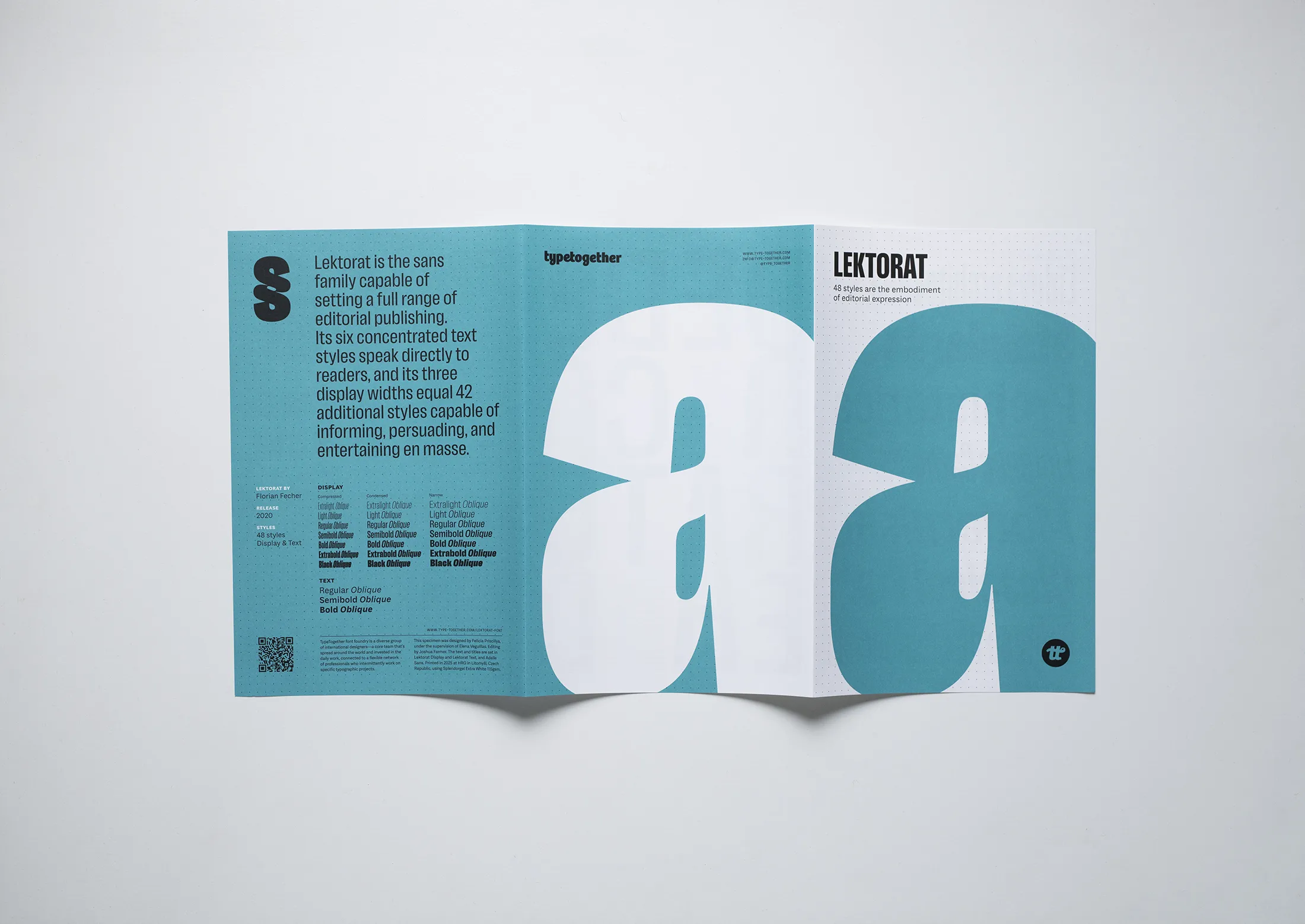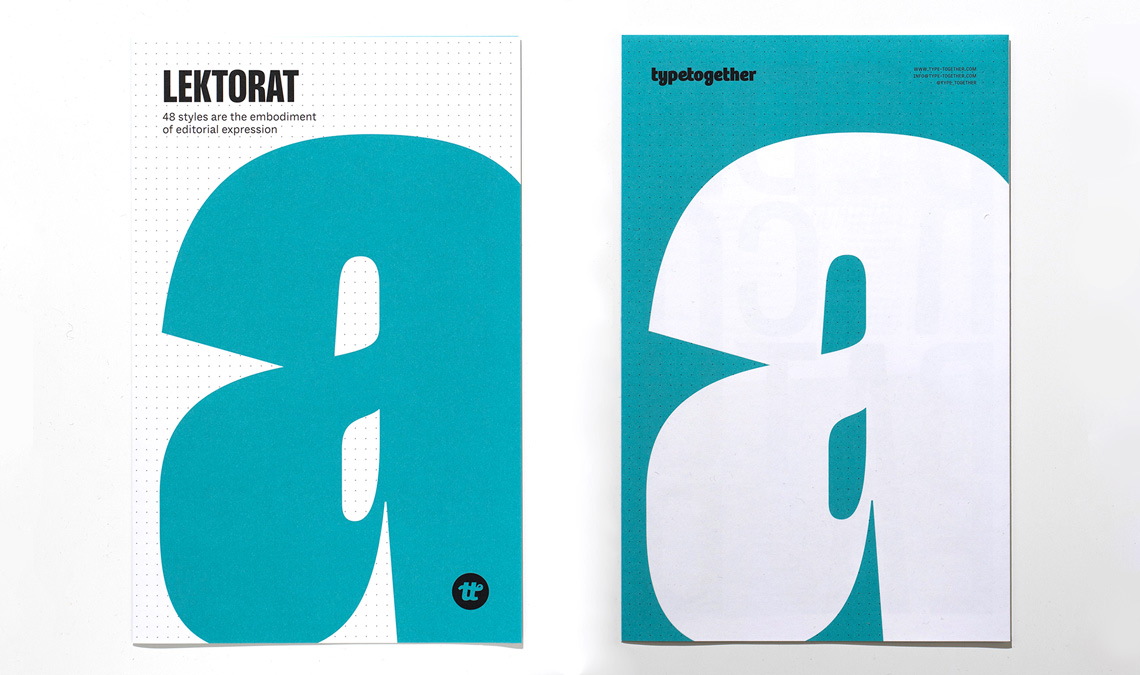
Lektorat specimen
Florian Fecher’s Lektorat font family is one for the books, and for the screens, and for the magazines. With its six concentrated text styles and three display widths equal 42 total styles, Lektorat is the sans family capable of setting a full range of editorial publishing. To mark its success, our talented graphic designer Felicia Priscillya designed this specimen, under the supervision of Elena Veguillas, now available in our store. Just cover the shipping/handling and the poster is yours for free.
The specimen folds out to 54×28 cm and has been printed by H.R.G. (Czech Republic) on Splendorgel Extra White 115 gsm.